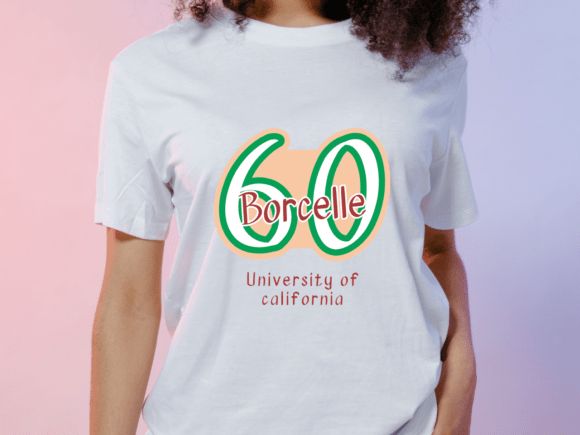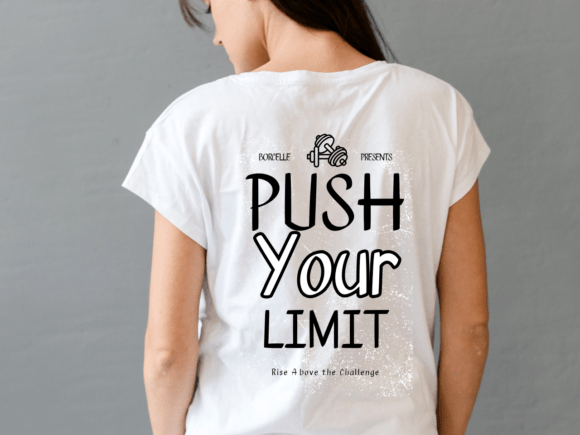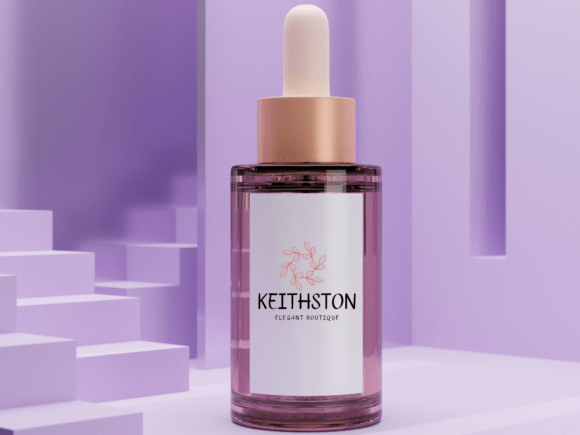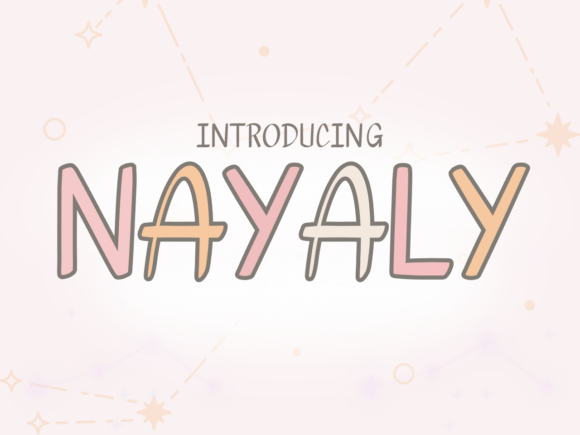
Introduction to Nayaly Font
Nayaly is a lovely and timeless handwritten font.
Why Choose Nayaly Font?
Nayaly Font offers exceptional quality and versatility, making it a valuable addition to your design toolkit. Whether you’re creating for personal projects or commercial use, Nayaly Font delivers professional results.